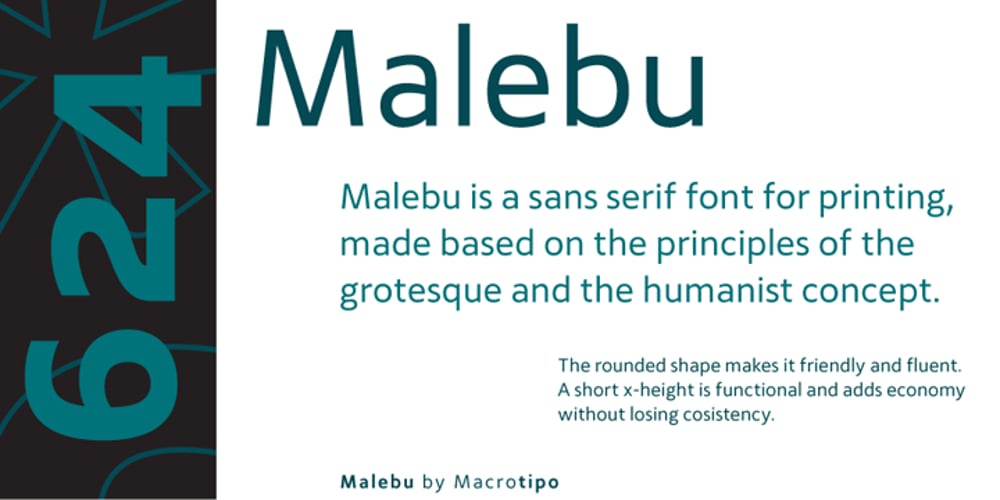
Malebu Font Family was designed by Santiago Silva and published by Macrotipo. Malebu contains 4 styles and family package options. Malebu is a sans serif font that was created based on grotesque and humanist models with certain geometric features. It is clear, simple, gentle and friendly, and can be used in text sizes. It is easy to read in long texts, magazines, books and the like. The rounded shape makes it friendly and fluent. A short x-height is functional and adds economy without losing consistency.